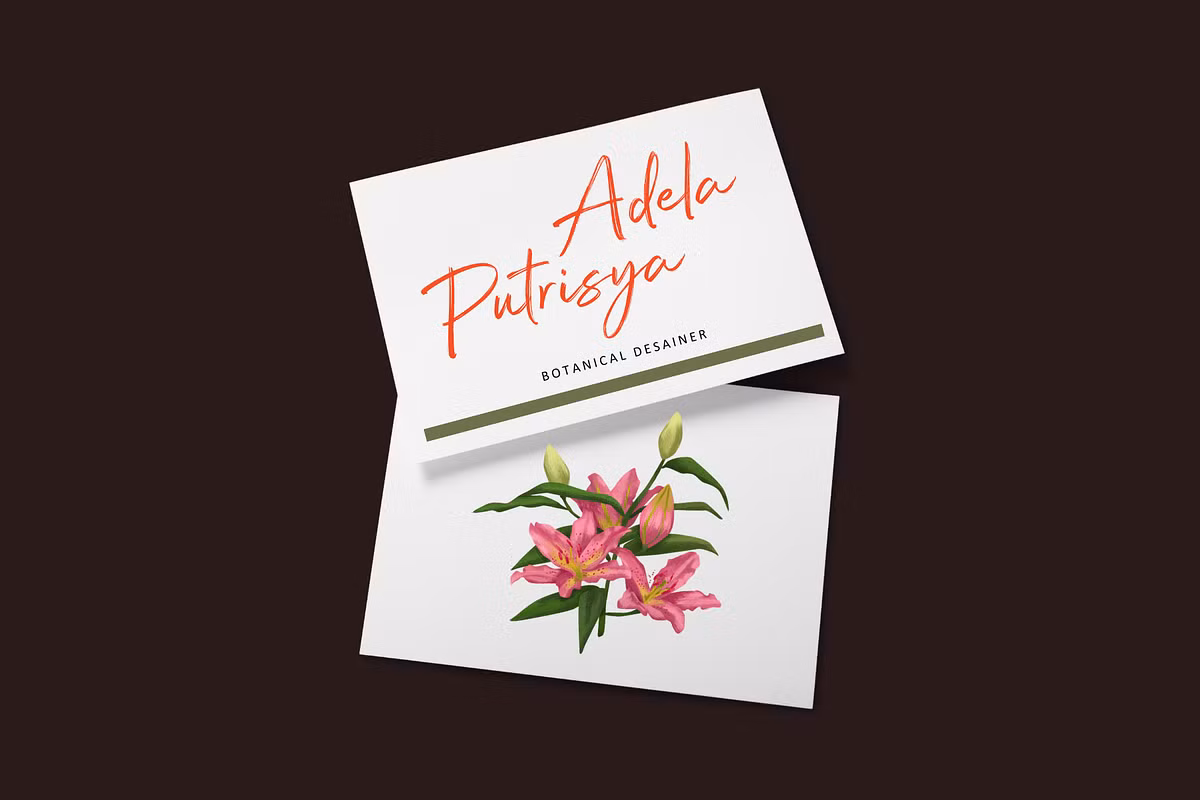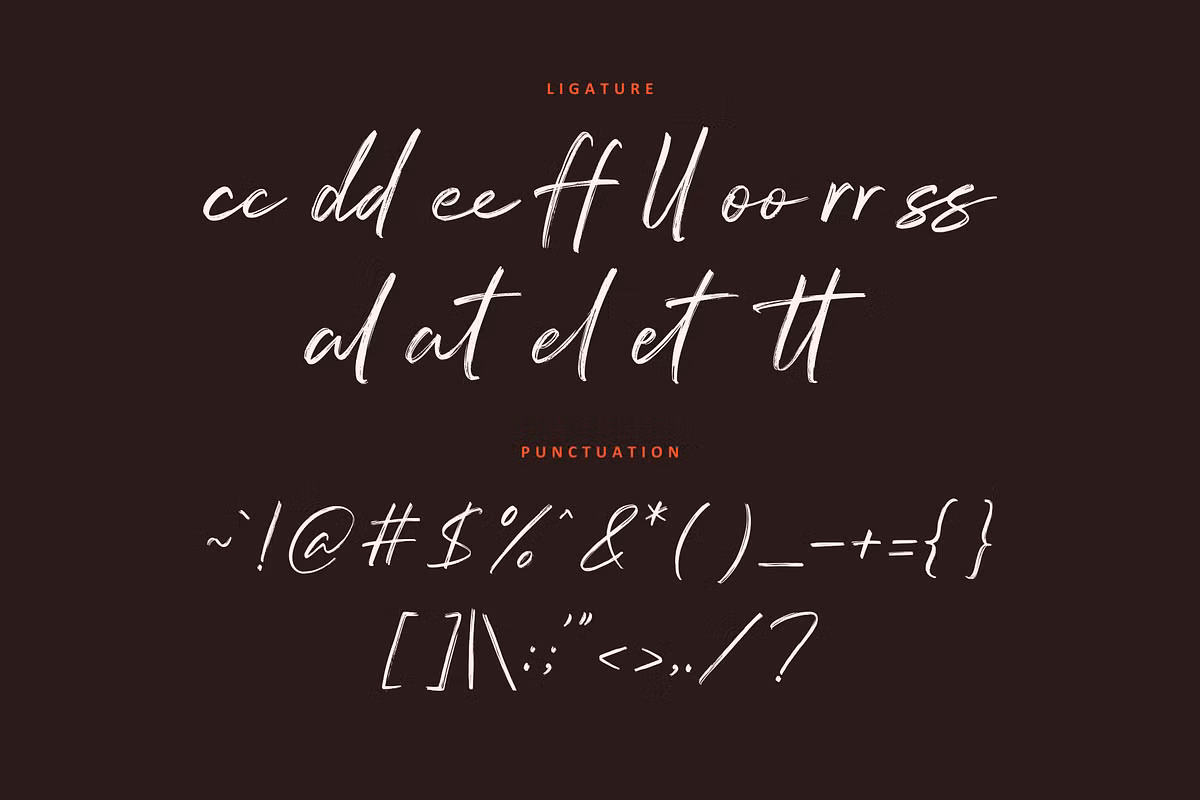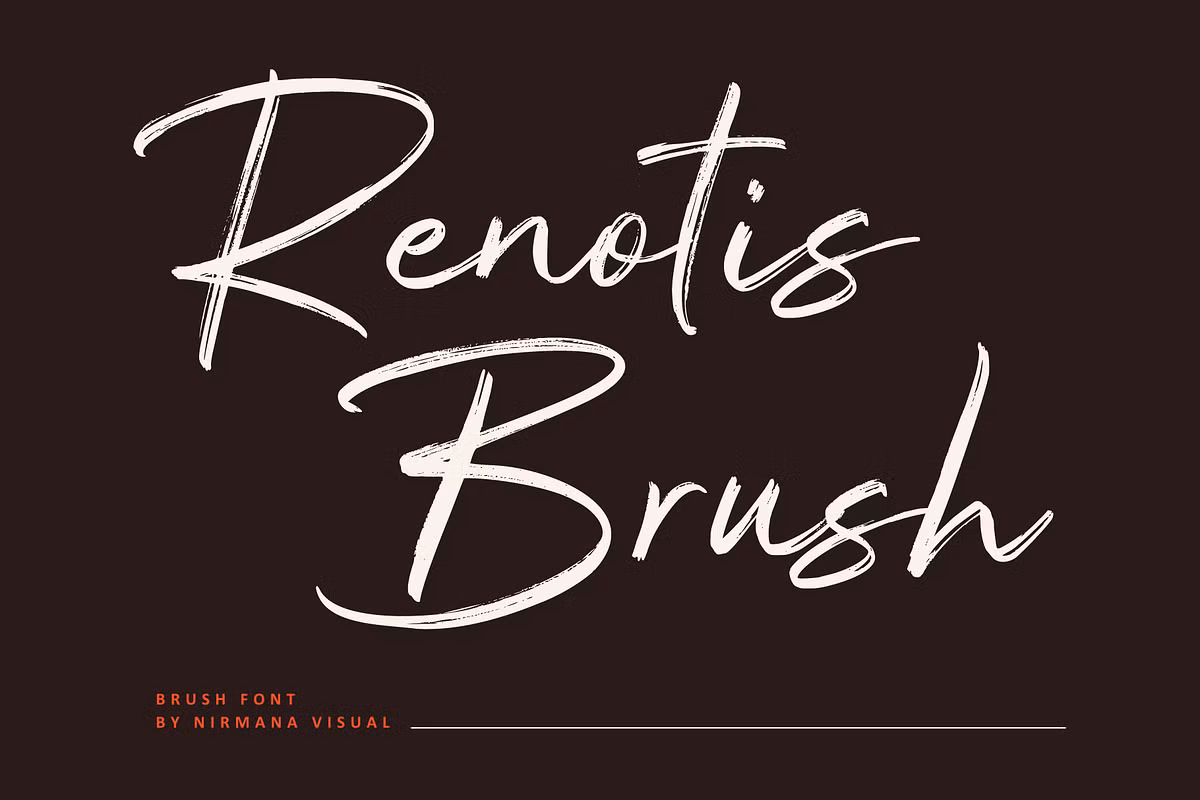
Renotis Brush Font
Renotis Brush is a modern brush script typeface. Itโ€™s perfect for creating the most beautiful and harmonious typography for a variety of projects: Logos and logo systems, posts in social networks, advertisement and product designs.